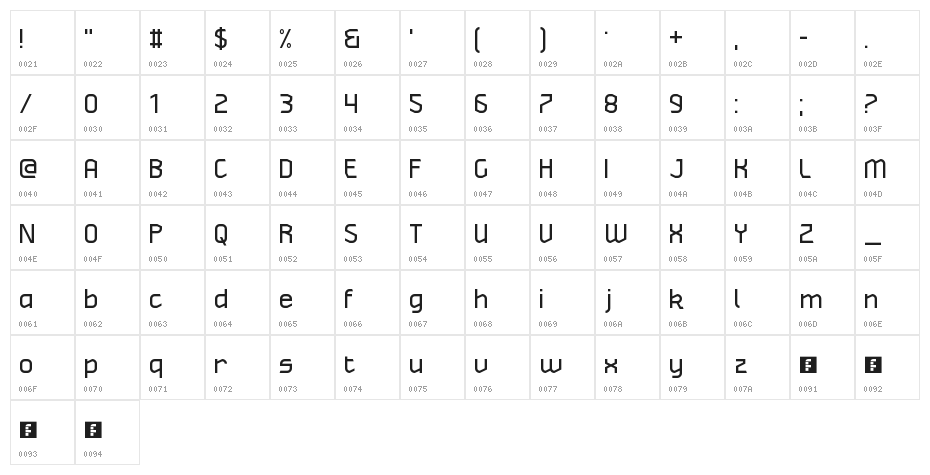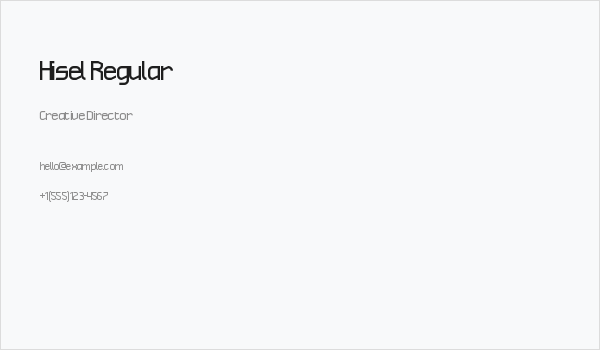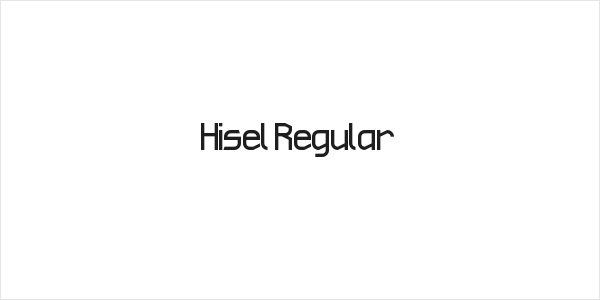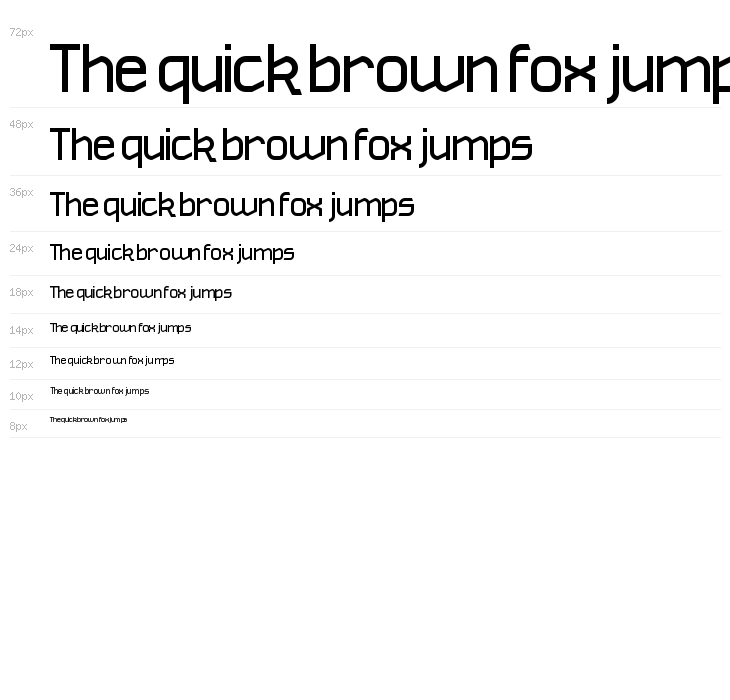
Hisel Regular Font
Hisel Regular Description
This font features a geometric and modern design with a distinct angular style. The characters are constructed with straight lines and sharp angles, giving it a futuristic and technical appearance. The uppercase and lowercase letters maintain a consistent height, contributing to a uniform look. The numerals and special characters follow the same angular theme, ensuring cohesion across all glyphs. This font's unique structure makes it stand out, while its clear legibility ensures it remains functional.
| Use Case | Logos, Headlines, Digital interfaces |
| Proposed Projects | Ideal for technology branding, futuristic designs, digital interfaces, and modern posters. |